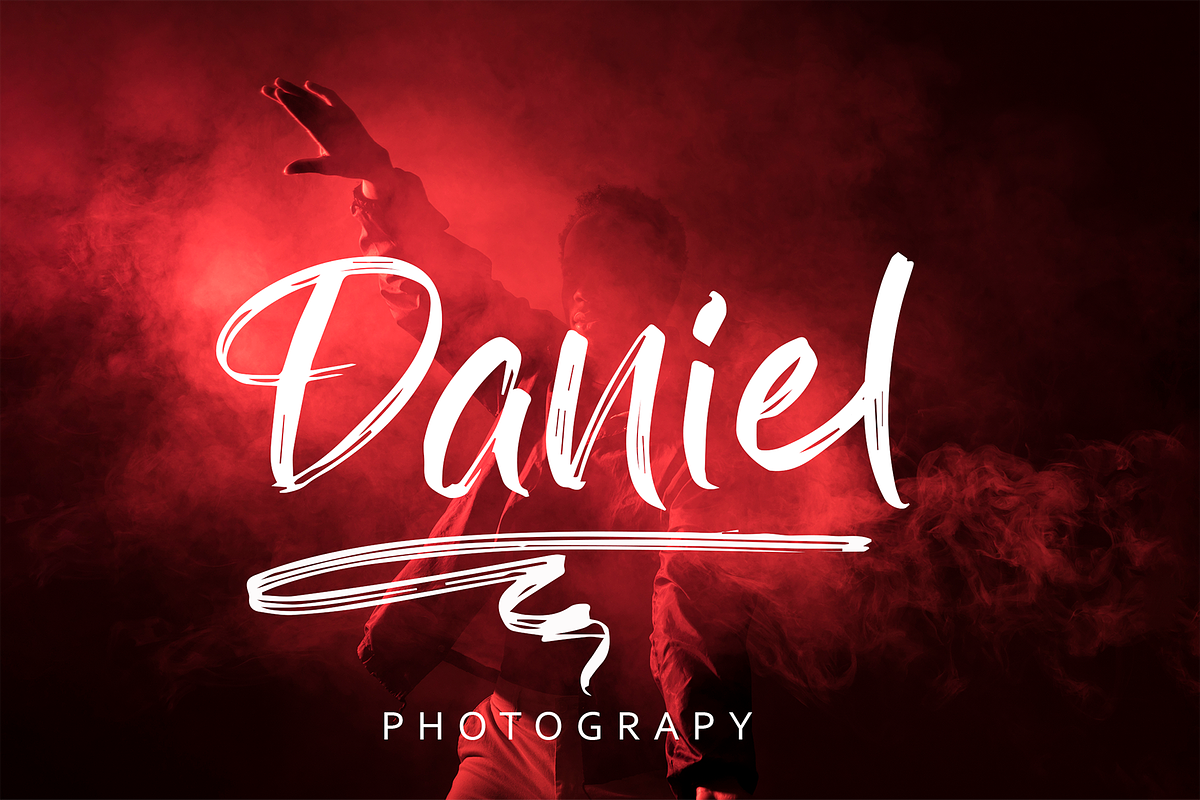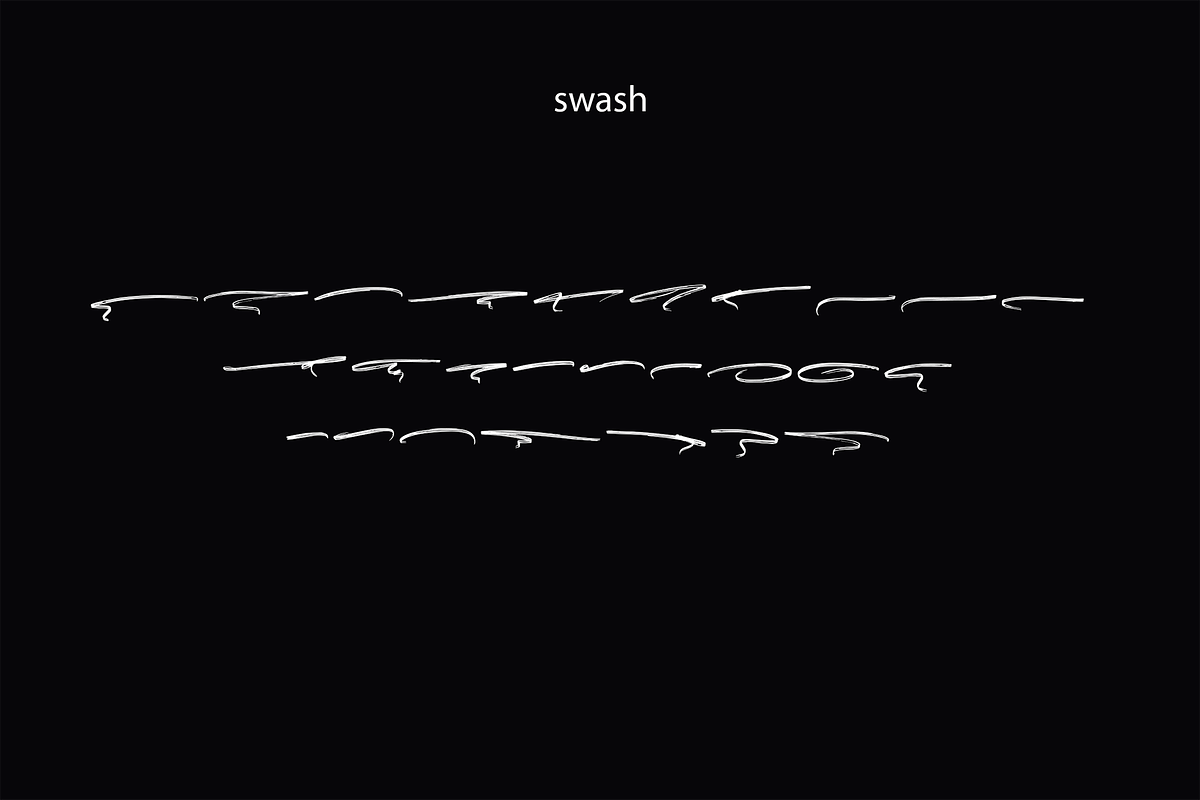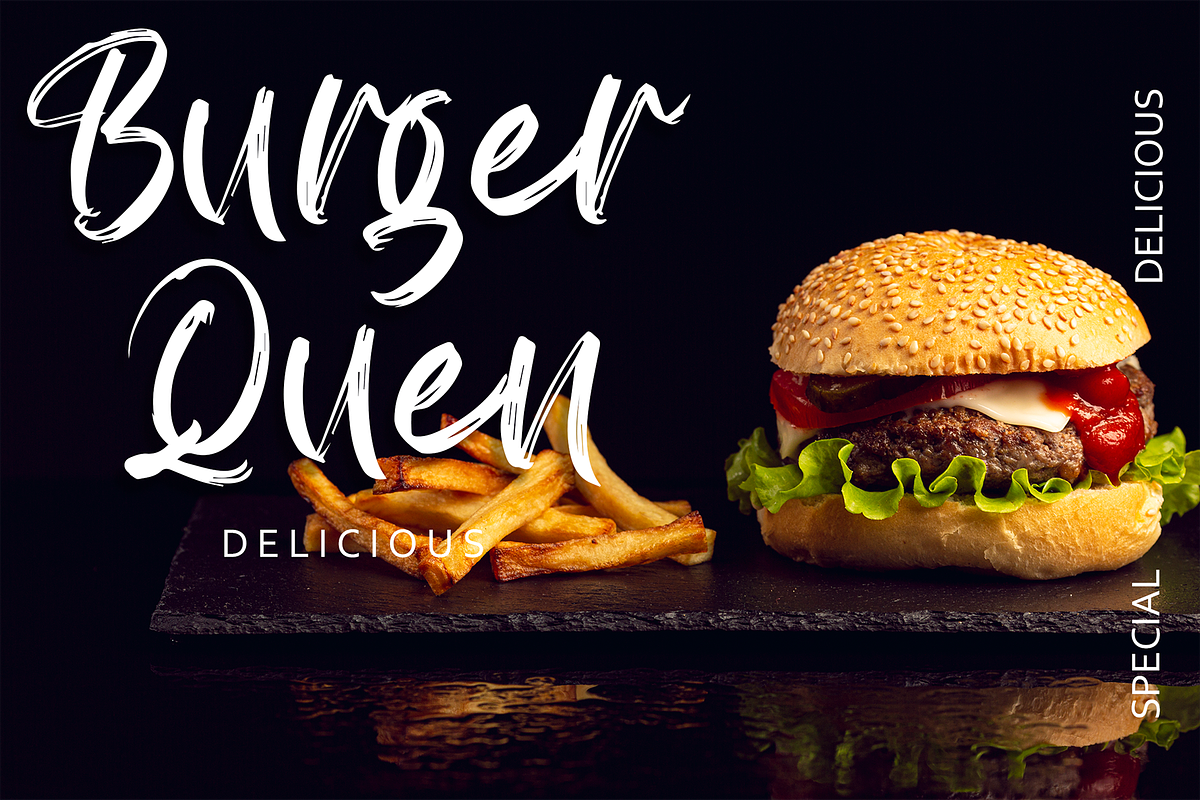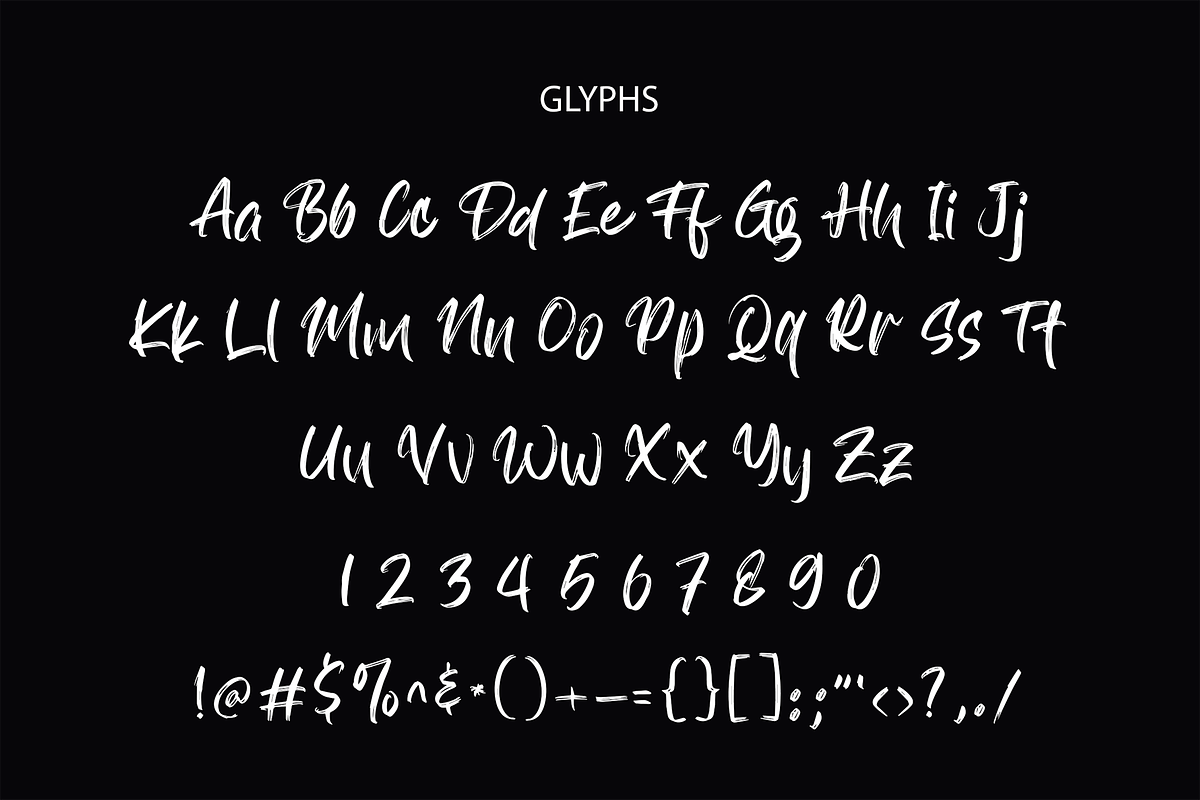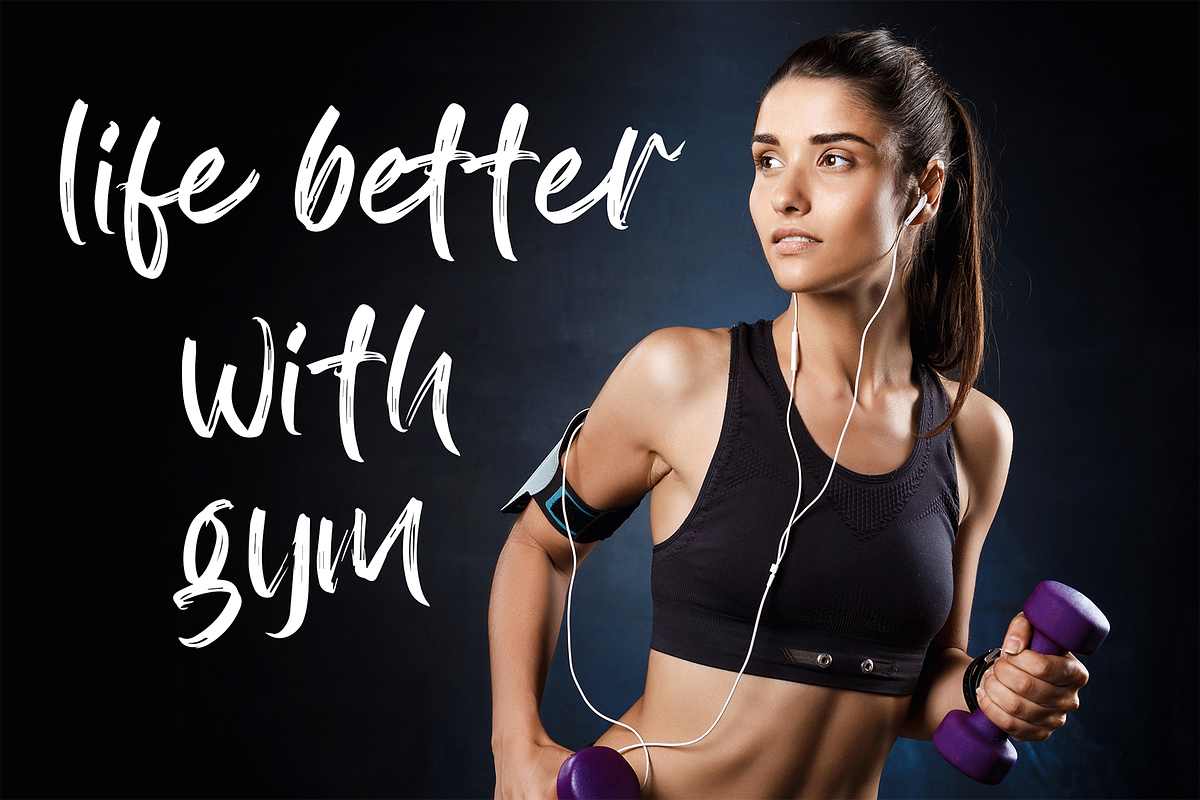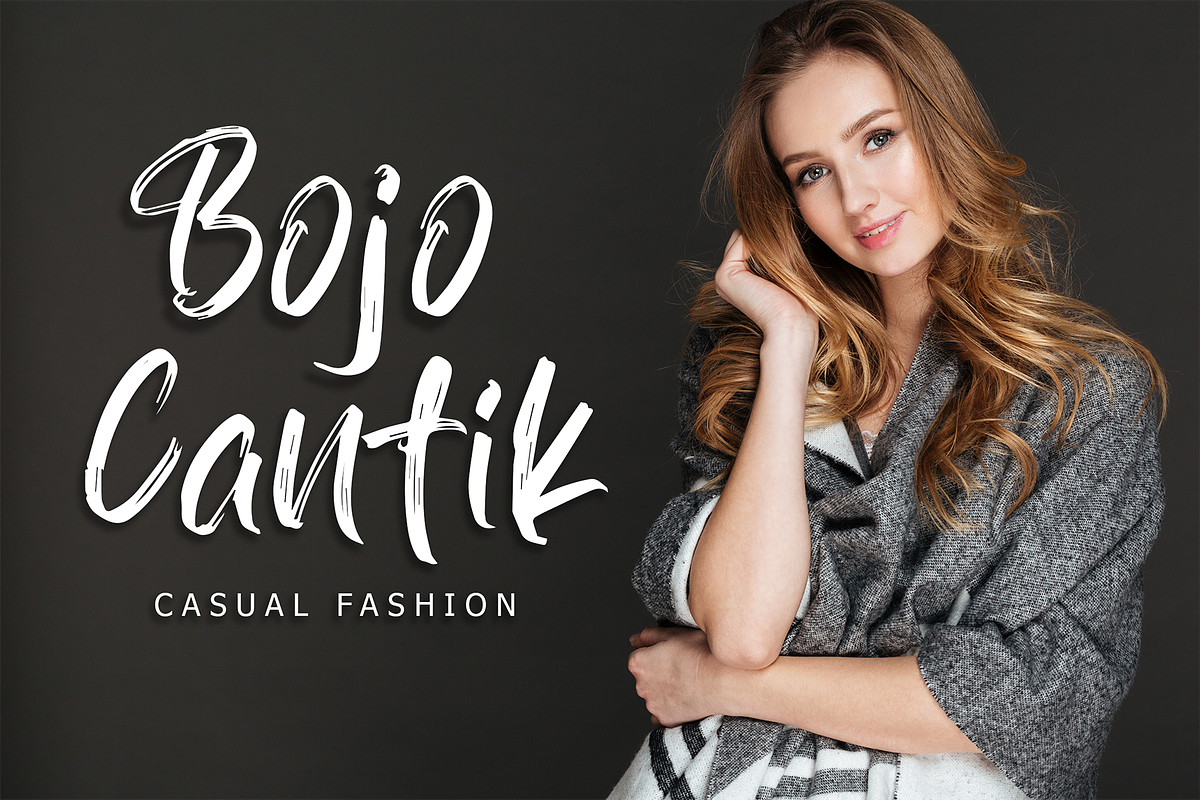
Soraya Brush Font
Soraya is an exciting script font with brush style. This beautiful script can make your text appear elegant, luxurious, and modern!